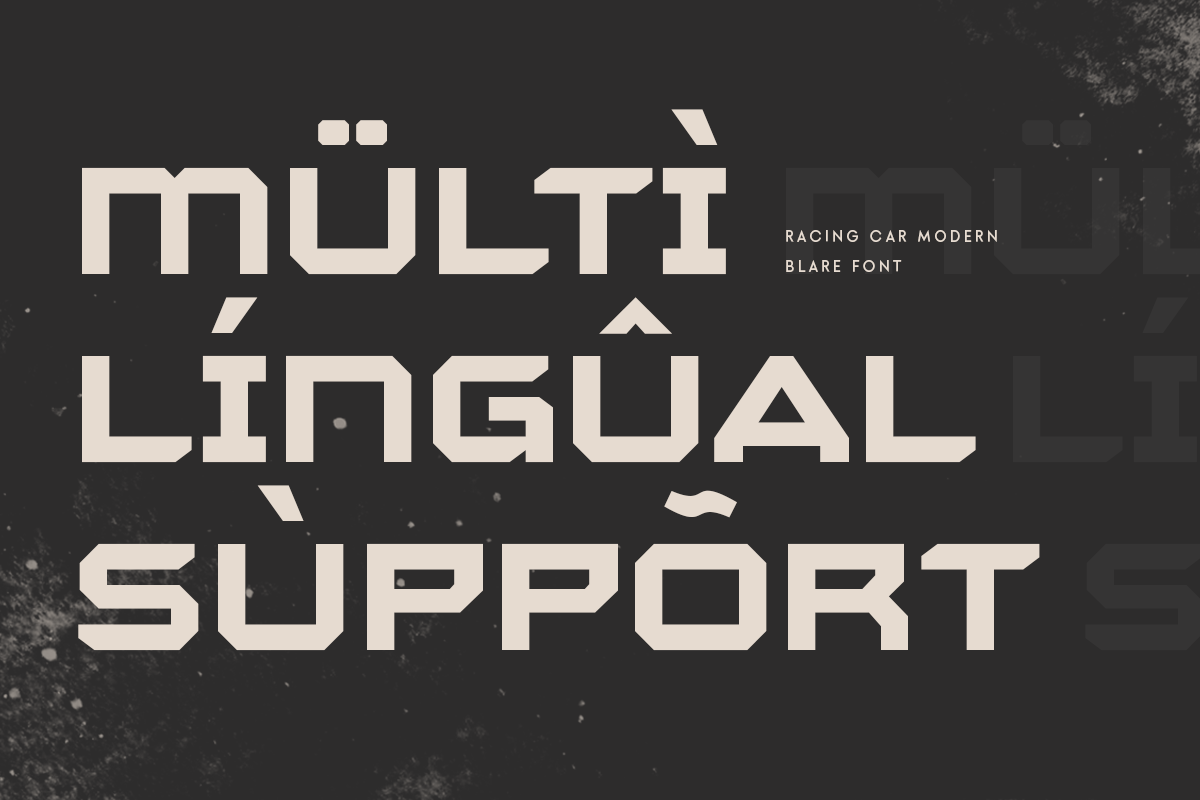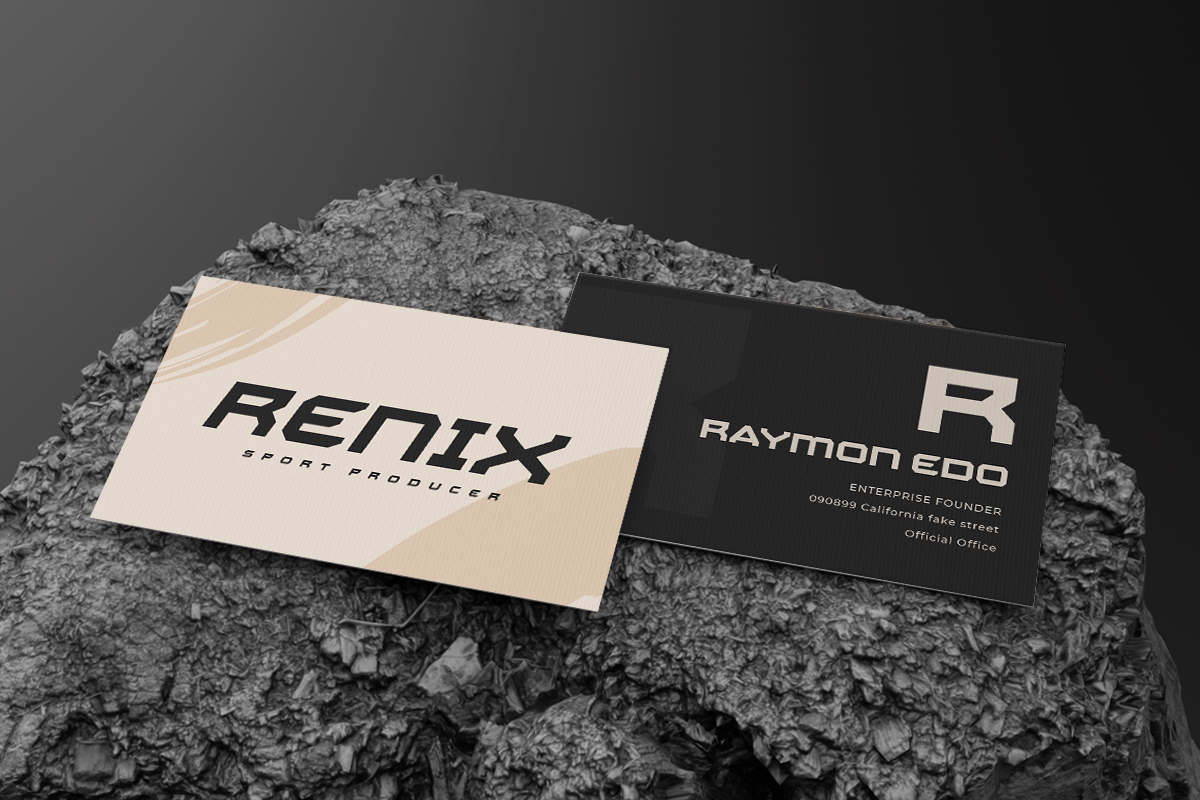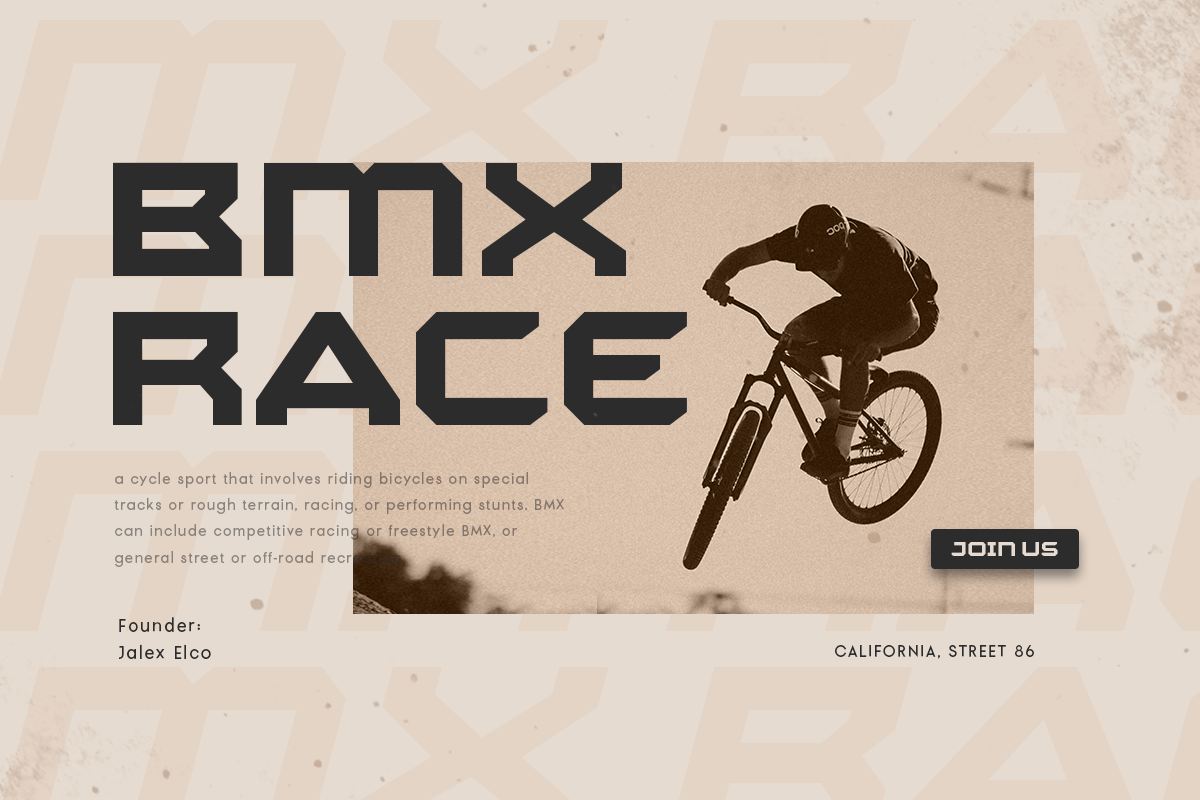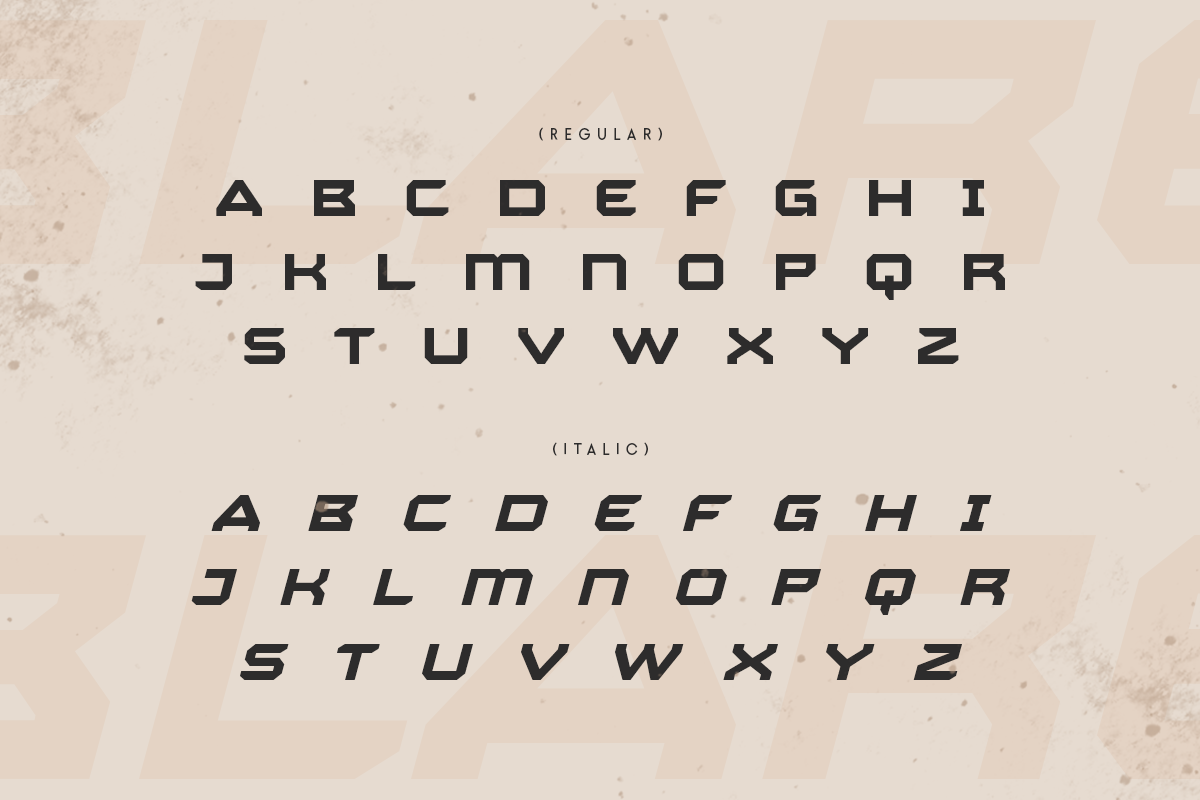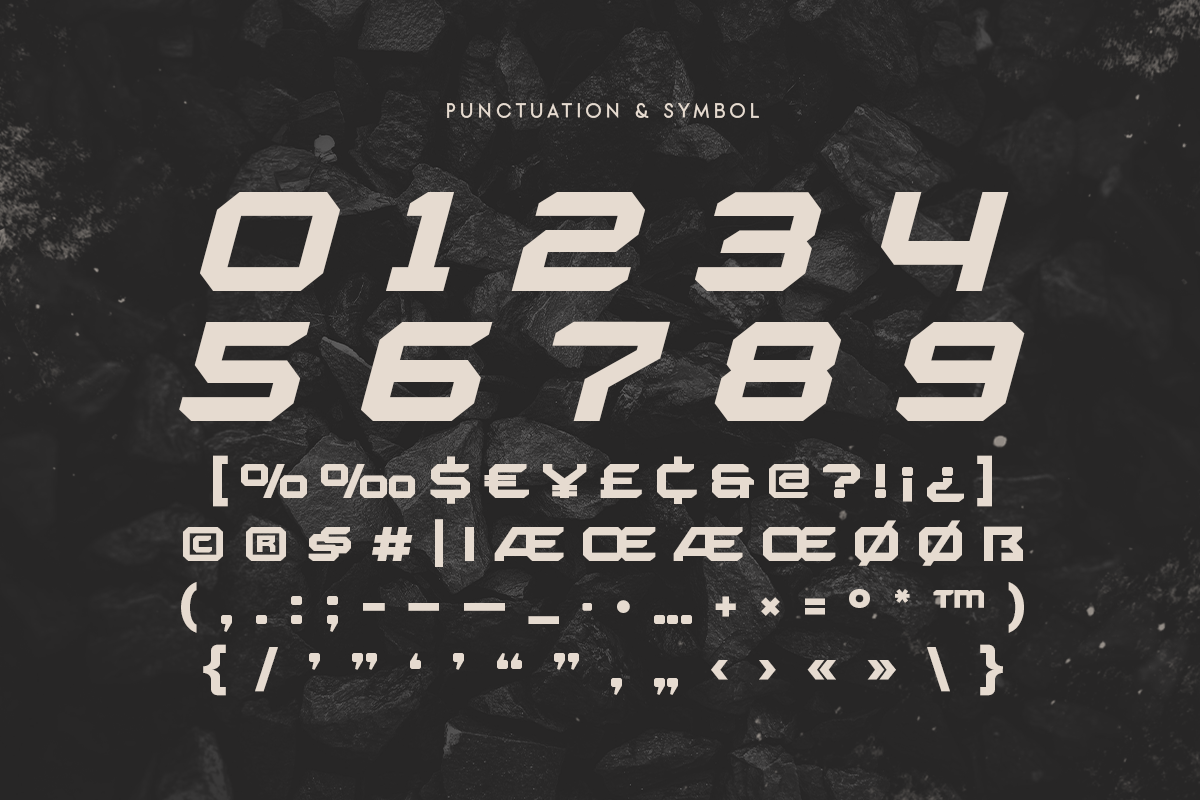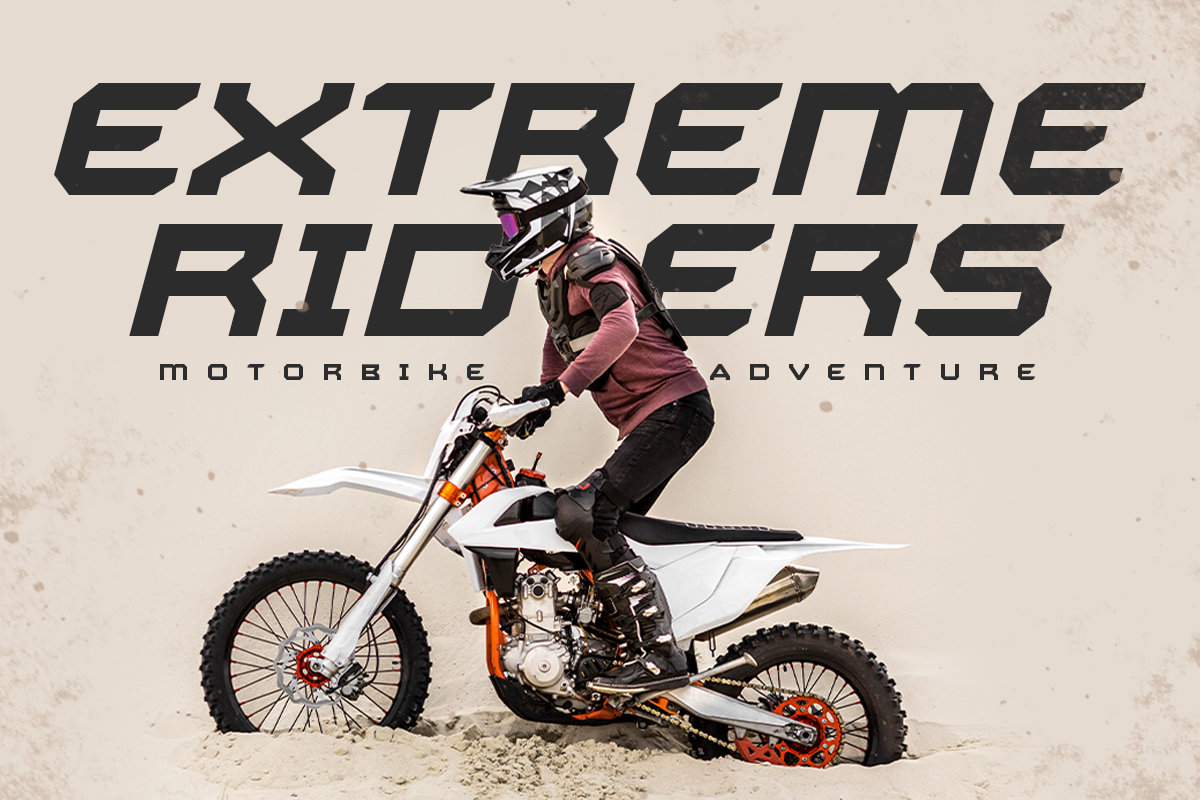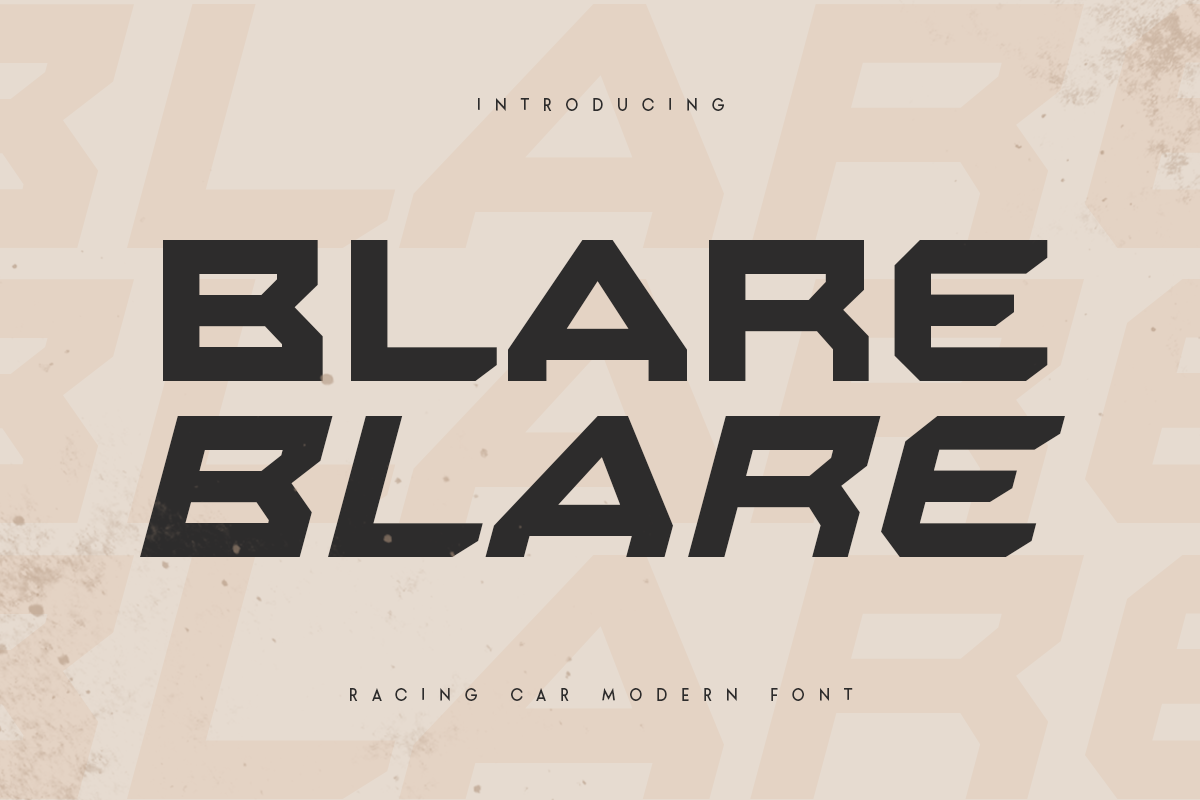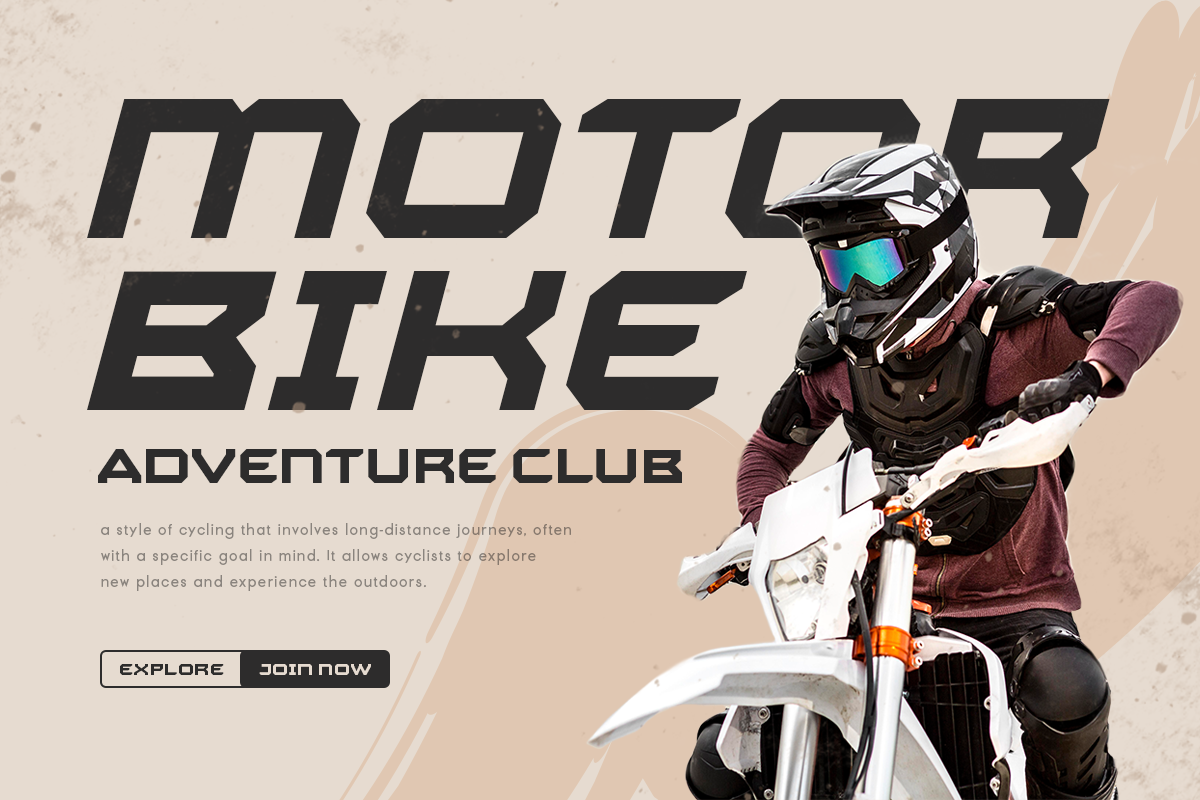
BLARE - Racing Car Modern Font
BLARE, a Racing Car Modern Font that created special for Branding, Title and more stand out typography for sport and action. It's so perfect to add your style and headline overview for sport, technology, actions, and fighting theme. And specially for this font, we crafted for bold action style and modern feels so enjoy to create any project that will show your main idea out.
BLARE Racing Car Modern Font ready with:
- Creative characters prepared to get best results with regular and italic version
- Ready with All Uppercase characters